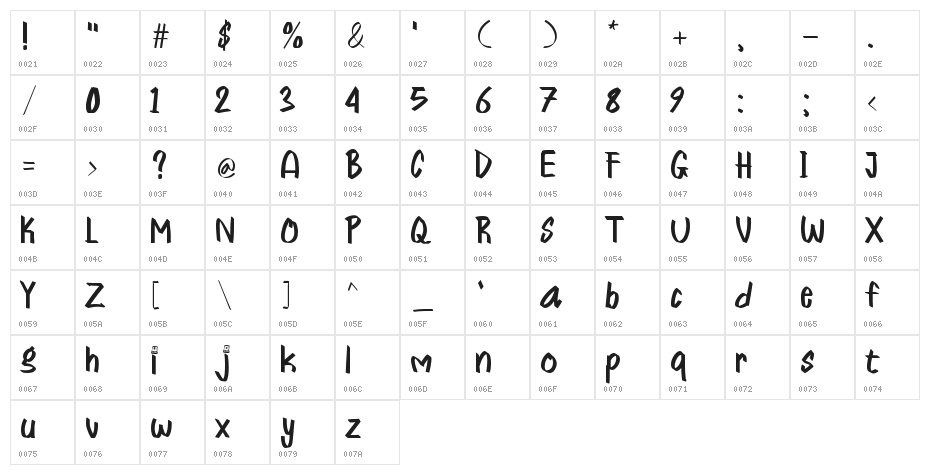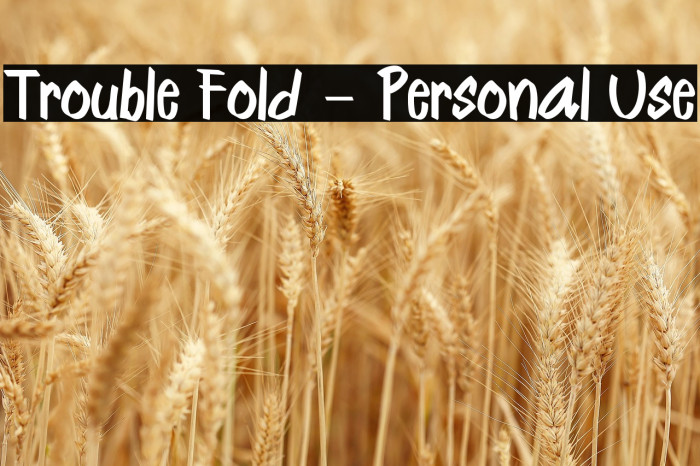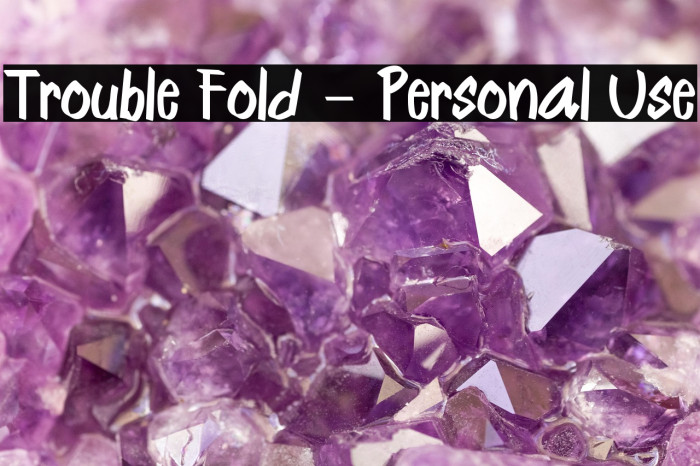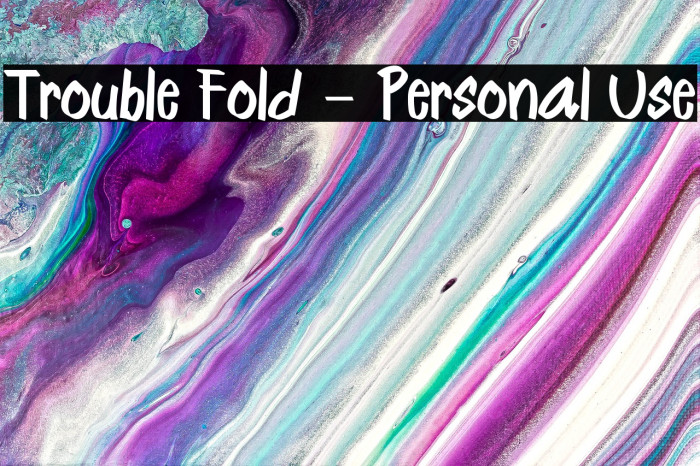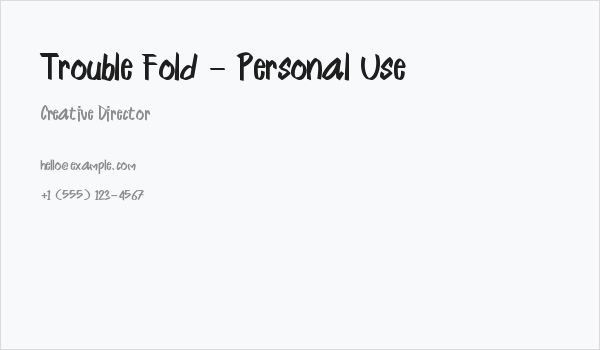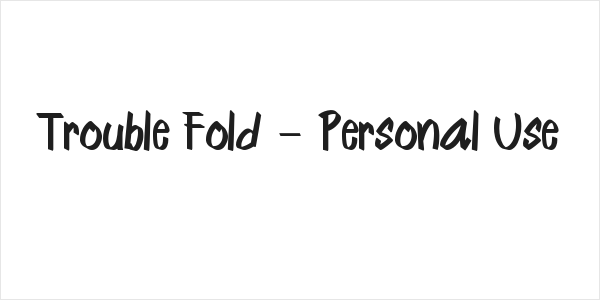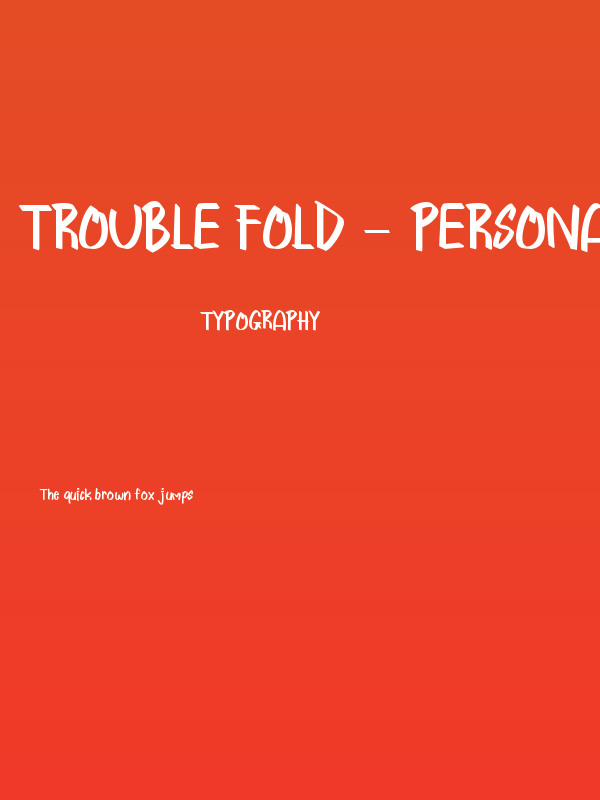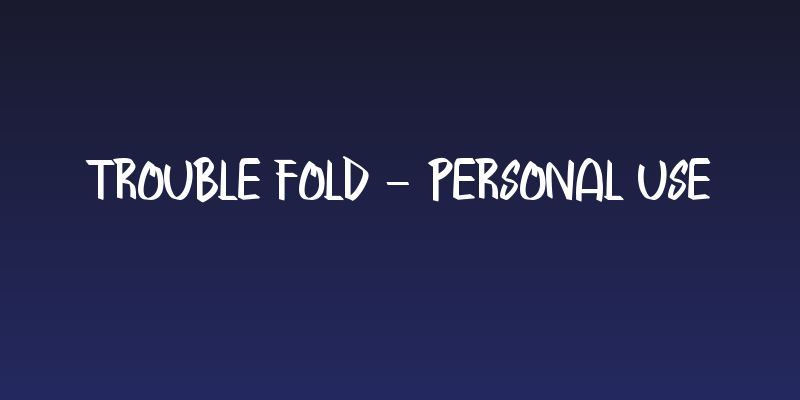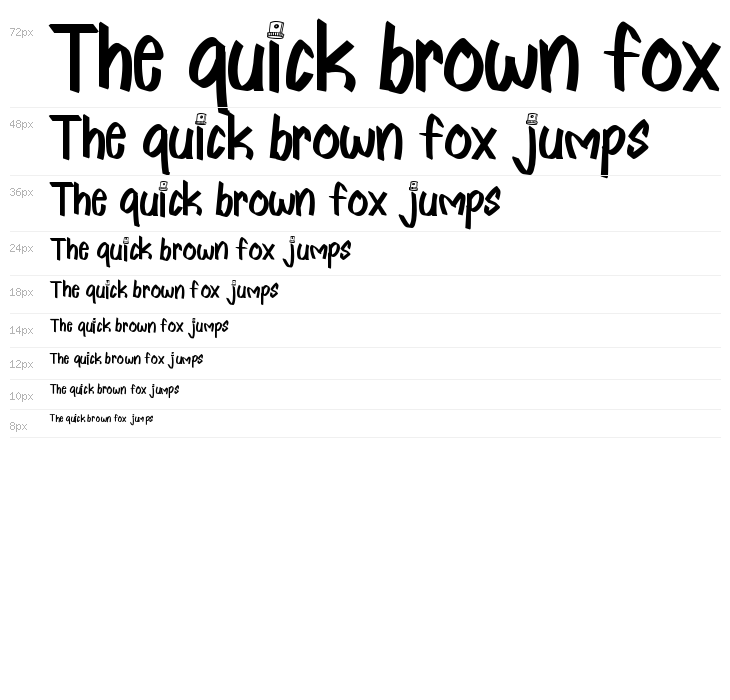
Trouble Fold - Personal Use Font
Trouble Fold - Personal Use Description
This font features a bold and playful style with a hand-drawn appearance. The letters are slightly irregular, giving it a casual and informal feel. The uppercase and lowercase letters maintain a consistent weight, while the numbers and special characters complement the overall design. The strokes are thick, contributing to a bold presence, and the character spacing is relatively tight, enhancing its compact look. This font is ideal for projects that require a fun and engaging aesthetic.
Overall StylePlayful
Use CaseHeadlines, Posters, Casual Branding
Proposed ProjectsIdeal for children's book covers, playful posters, greeting cards, and casual branding projects.